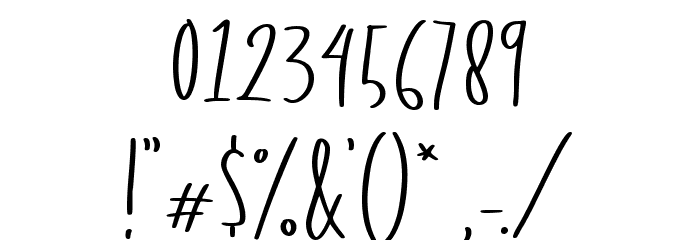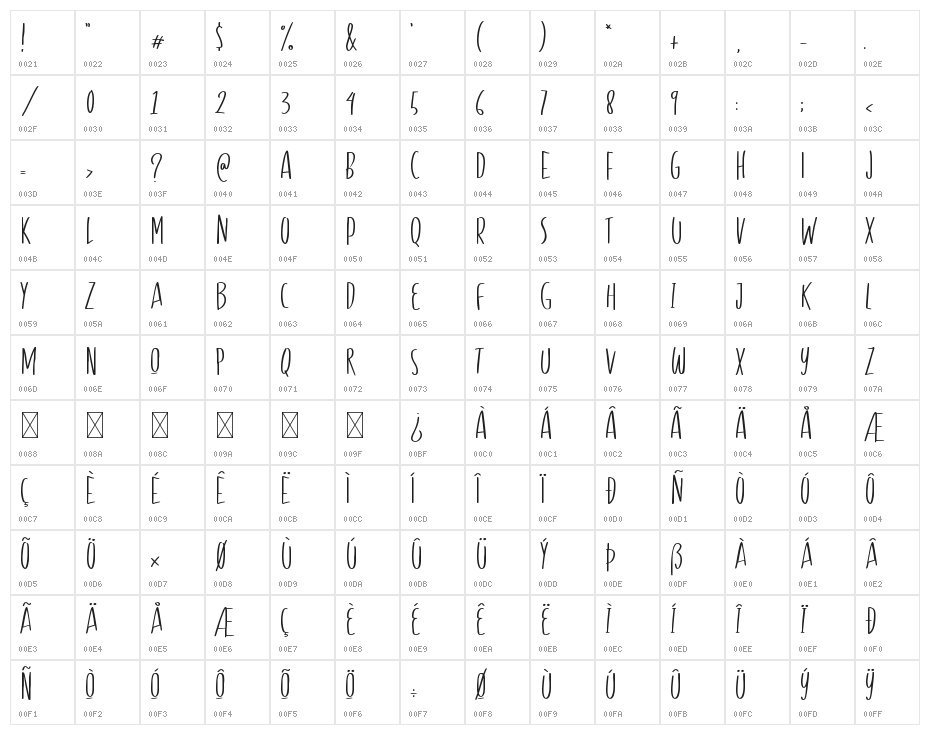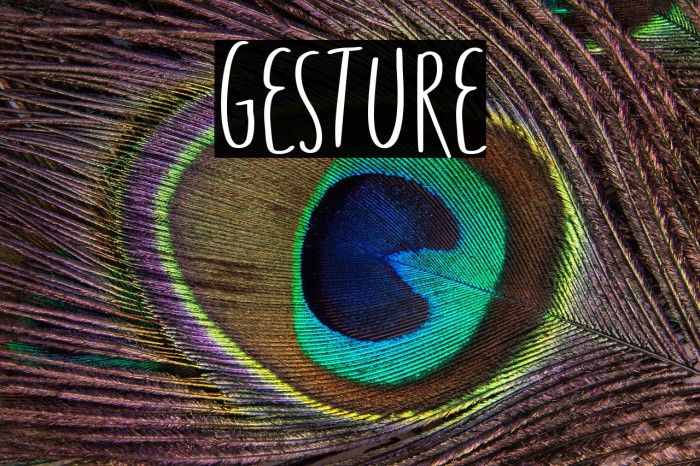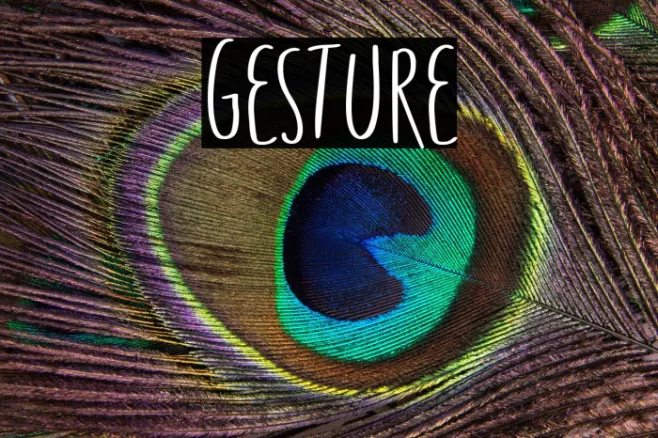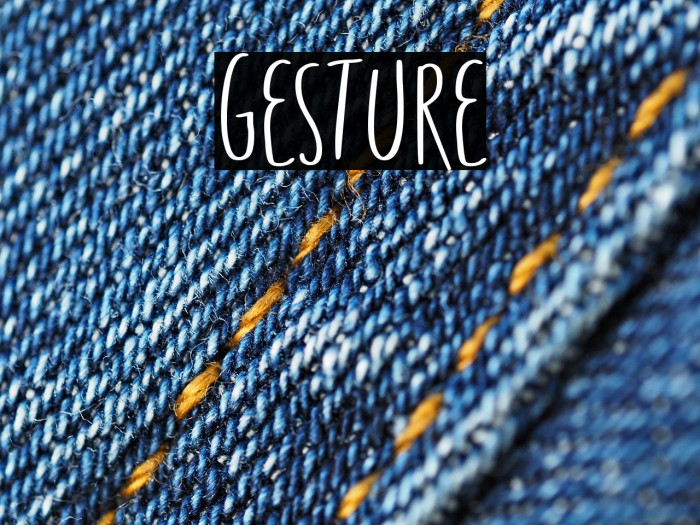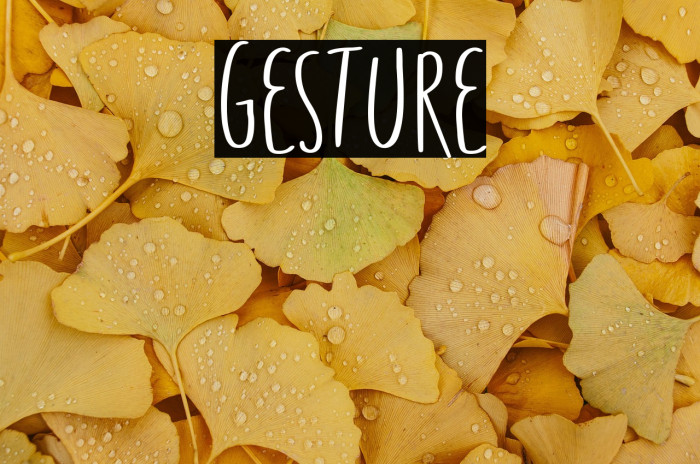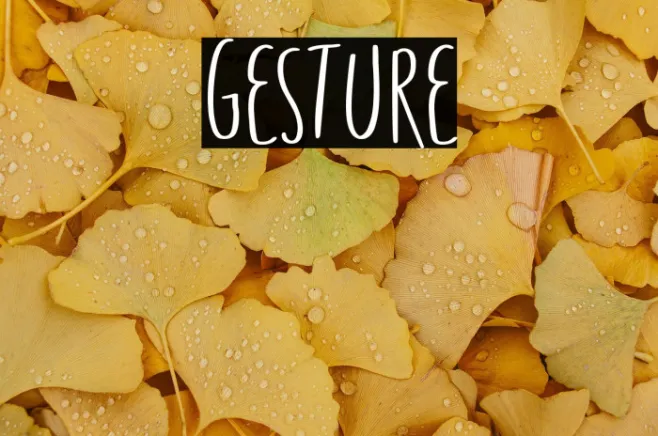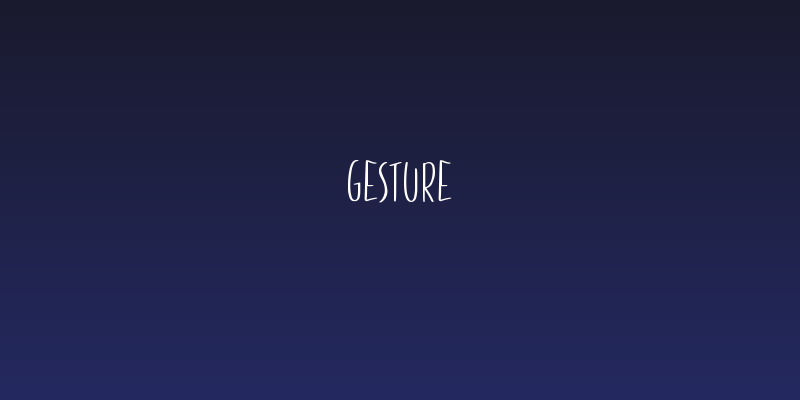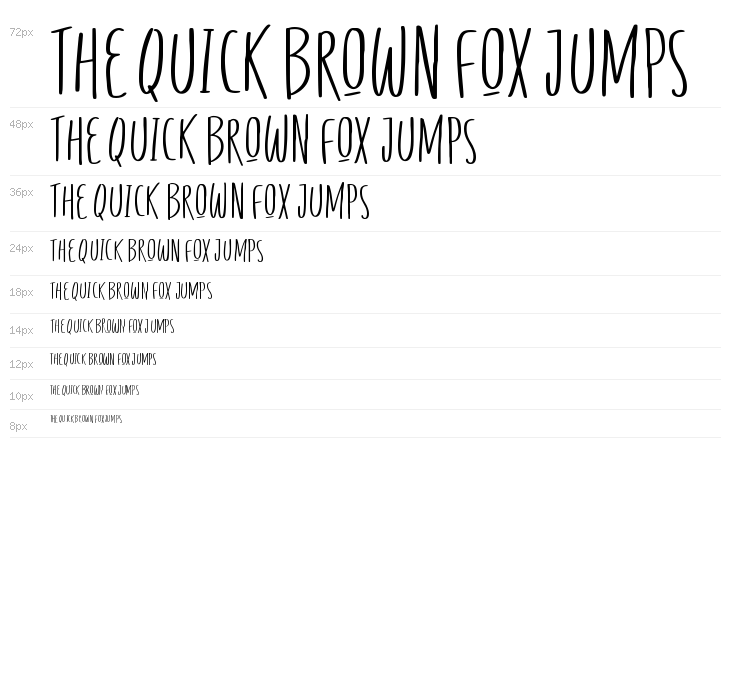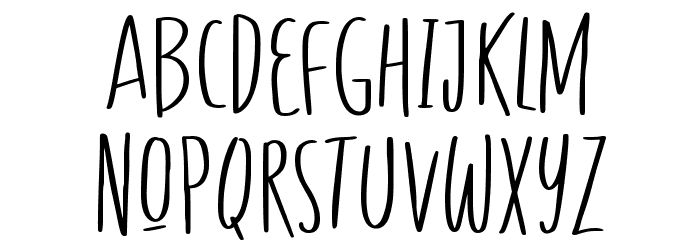
Gesture Font
Gesture Description
This font features a playful and casual handwritten style, characterized by its tall, narrow letters and slightly irregular strokes. The uppercase and lowercase letters maintain a consistent height, giving it a uniform appearance while retaining a hand-drawn charm. The numerals and special characters follow the same style, ensuring cohesion across all glyphs. The strokes are smooth with a medium contrast, adding to the legibility and appeal of the font. Its informal yet stylish look makes it suitable for a variety of creative projects.